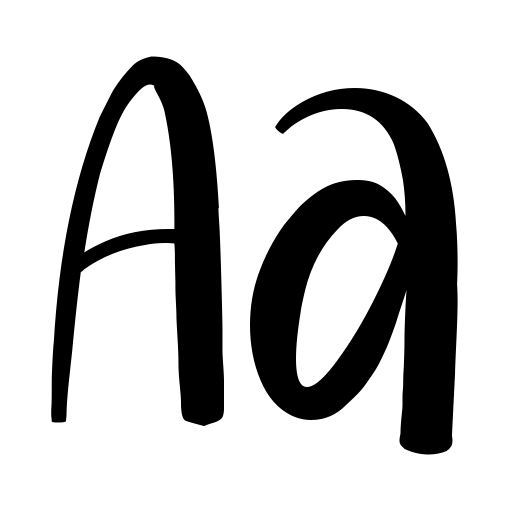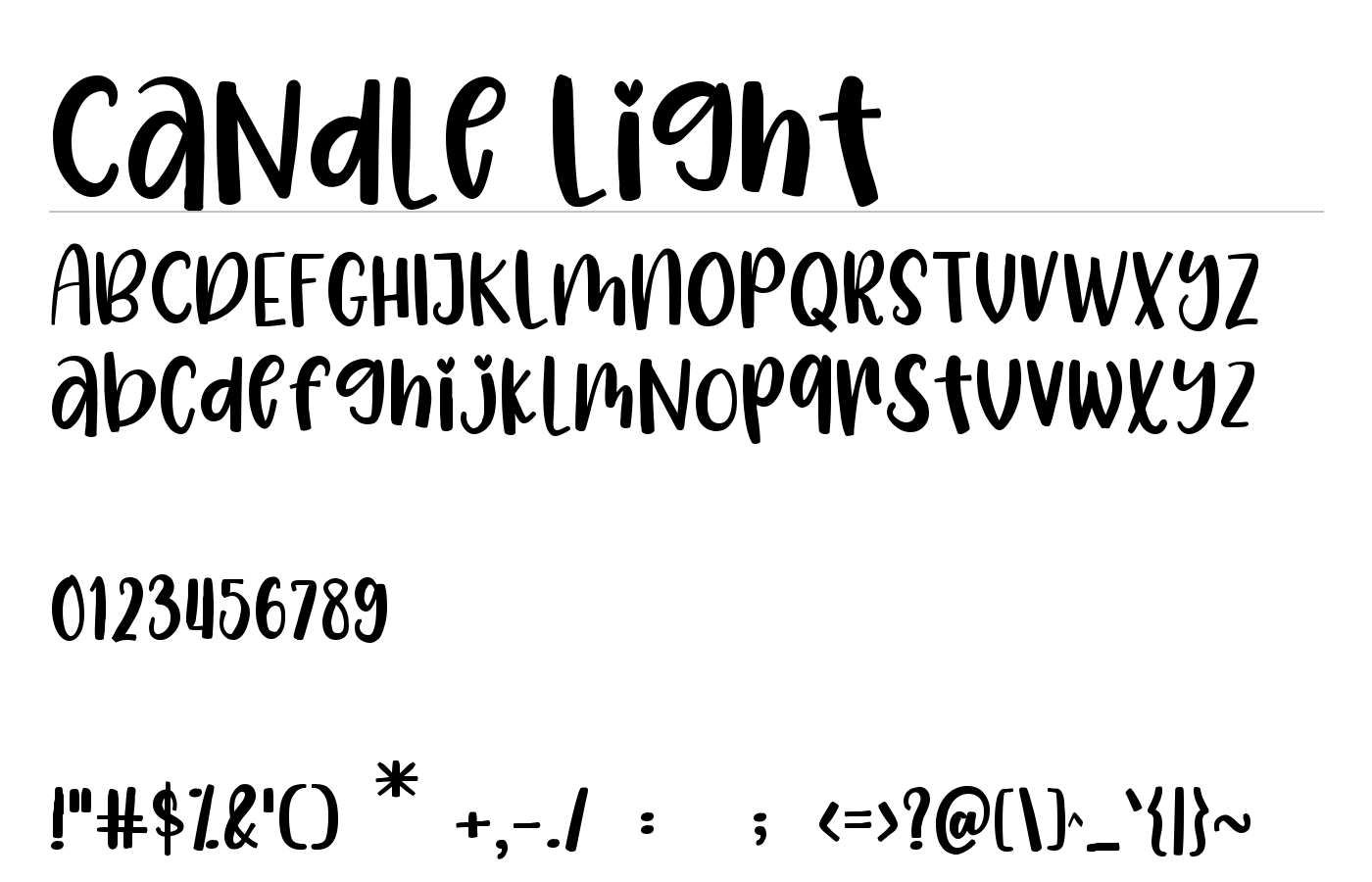
Candle Light is a playful, hand-drawn sans serif font with a casual and friendly vibe. Its tall, narrow letters with quirky details like heart dots and slight stroke variations give it a warm, inviting personality perfect for creative projects, kids' designs, and informal branding. This font works wonderfully for logos, invitations, and headlines where a charming, approachable look is desired.
Candle Light Font
About Candle Light Font